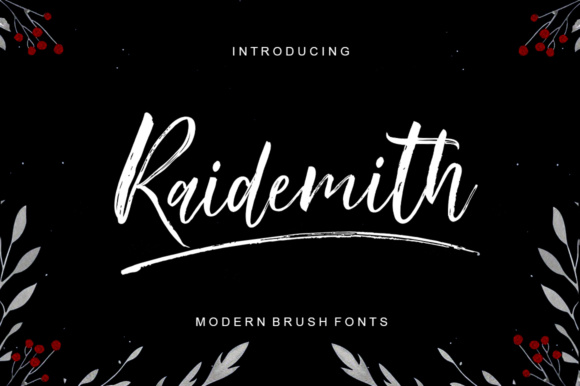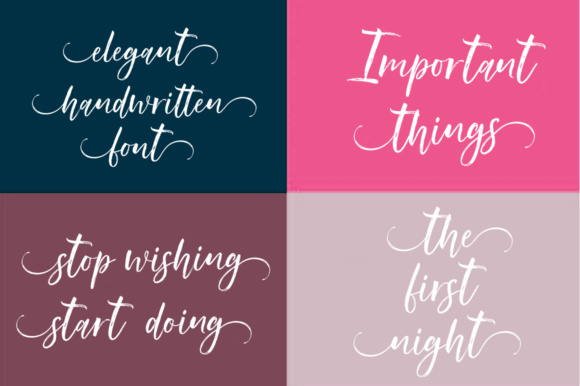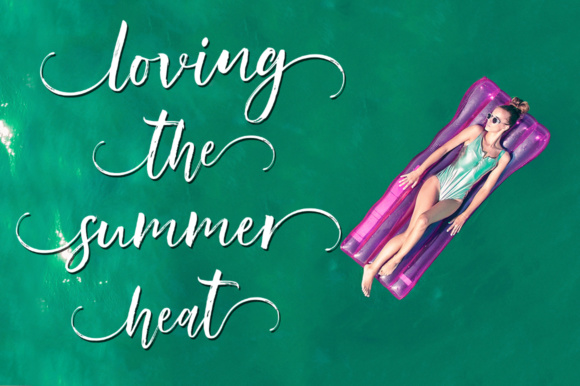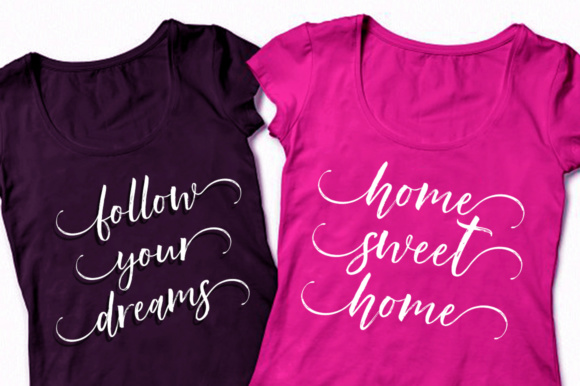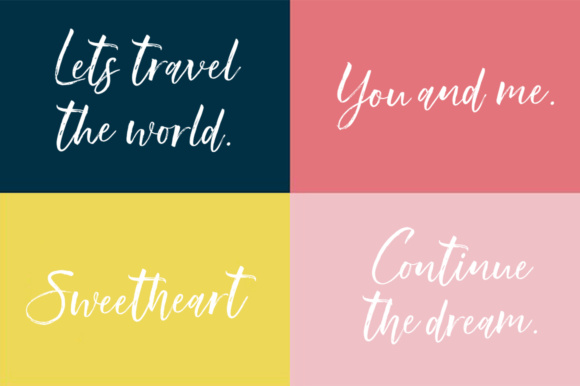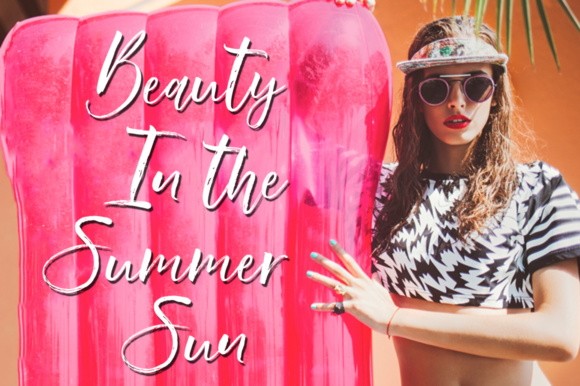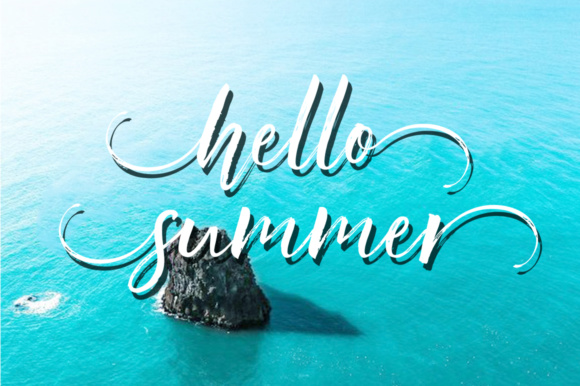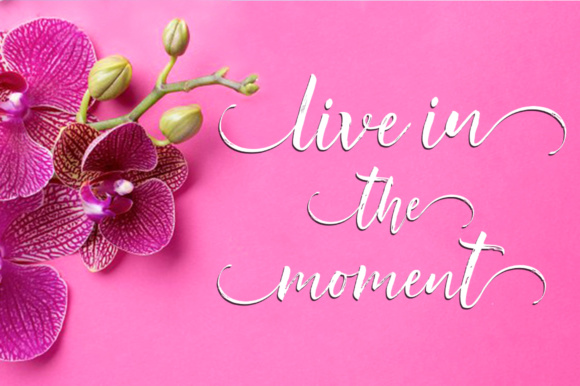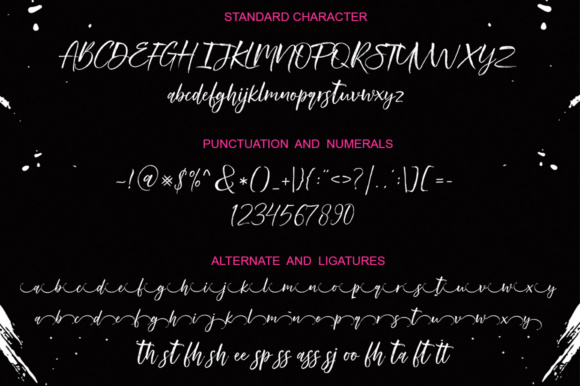
Raidemith Font
About Raidemith Font
The Raidemith is a textured brush font. It has a natural handwritten feel and irregular baselines, perfect for adding an attractive feel to your design.